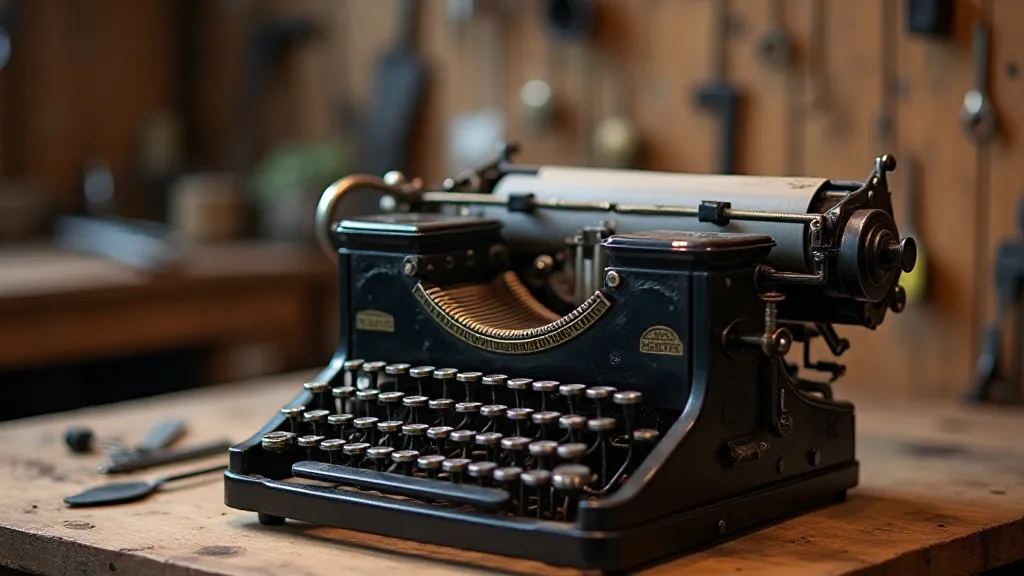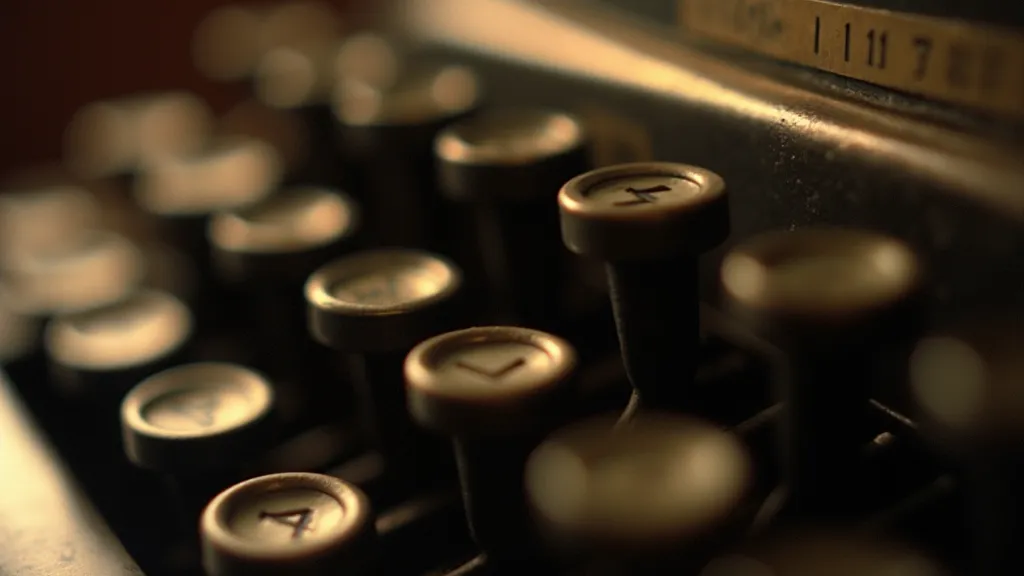
The Scribing Soul: Typewriter Fonts as a Portal to Lost Voices
There’s a peculiar intimacy fostered by the clatter of a typewriter. Not the sterile hum of a modern printer, but the rhythmic, almost percussive sound of metal striking paper, each letter a miniature declaration of presence. It's a sound imbued with a history, a tangible link to generations of writers, thinkers, and storytellers who poured their lives onto the page using these remarkable machines. And now, with a carefully chosen digital font, we can, in a small way, recapture some of that magic. This isn’t just about replicating a typeface; it's about summoning a specific emotional register, a unique atmosphere, a sense of authenticity that’s often lost in the digital age.
My own fascination began with my grandfather's Underwood No. 5. It sat, silent and imposing, in a corner of his study, a monument to his writing life. He was a poet, a man who wrestled with words, and the typewriter felt like an extension of his soul. I remember tracing the worn keys with my fingers, feeling the raised letters beneath my fingertips, imagining the countless stories it had helped to birth. It wasn’t just a machine; it was a portal to his world, a tangible connection to a man I desperately wanted to understand.
The digital reproduction of these typefaces—what we’re calling our "Replica Typewriter Font Library"—is more than a technical exercise. It’s a labor of love, a painstaking effort to capture not only the visual appearance of these fonts, but also the subtle nuances of their character. Each font is a digital fingerprint of a specific typewriter model, meticulously recreated to match the original spacing, kerning, and even the slight imperfections that arise from years of use.
The History Held Within Each Font
Consider the Remington No. 2, one of the earliest commercially successful typewriters. Its font, often referred to as "Remington No. 2," embodies the optimism and ambition of the late 19th century. It's a bold, straightforward typeface, reflecting the era's focus on practicality and progress. Choosing this font for your writing evokes a sense of formality and a connection to the pioneers of the typewriter age.
Then there's the iconic Olivetti Lettera 22, a design masterpiece from the mid-20th century. Its font, characterized by its elegant curves and a slightly softer feel, conveys a sense of sophistication and refinement. It’s a font that whispers of Milanese design, of a more leisurely pace of life, and of a quiet confidence.
The Corona 3, a popular portable typewriter, possessed a remarkably distinctive font – often described as delicate and slightly whimsical. Its recreation is particularly challenging, capturing the subtle variations caused by the machine’s less robust mechanics.
Even seemingly minor differences in the internal mechanisms of these machines – a slightly different hammer strike, a subtly different font casting process – contributed to the unique character of each typeface. Replicating these differences is the heart of our project.
The Craft of Replication: More Than Just a Font File
The process of recreating a typewriter font is far more complex than simply scanning a sample and converting it to a digital format. It requires a deep understanding of typography, a keen eye for detail, and a genuine appreciation for the craftsmanship of the original machines. We're not just recreating letters; we're reconstructing a history.
The first step involves acquiring a physical sample of the typewriter font. This is often challenging, as many of these machines are rare and their original fonts are even rarer. Once we have a sample, we painstakingly scan it at high resolution, capturing every detail of the typeface’s form. Then comes the laborious process of tracing the letters, adjusting the spacing, and fine-tuning the kerning – the space between individual letters – to match the original as closely as possible. This requires meticulous attention to detail and a deep understanding of the principles of typography.
Furthermore, we attempt to replicate the "imperfections" inherent in the original typefaces. The slight variations in the hammer strike, the subtle wear and tear on the font casting, all contribute to the unique character of each typeface. These imperfections are often what give a typewriter font its soul.
Selecting the Right Font: Evoking the Desired Atmosphere
The choice of font isn’t just about aesthetics; it's about evoking a specific emotional register. Do you want your writing to feel formal and authoritative, or informal and approachable? Do you want it to feel timeless and classic, or modern and edgy?
Using the Remington No. 2 font for a legal document would convey a sense of seriousness and professionalism. Employing the Olivetti Lettera 22 font for a personal letter would create a feeling of warmth and intimacy. The Corona 3 might suit a children’s story, lending it a playful and whimsical tone.
Think of a detective novel set in the 1940s. A typeface inspired by a Royal Quiet De Luxe might be perfect, instantly grounding the reader in the era and setting the mood. The subtle imperfections inherent in the font, mirroring the wear and tear on a well-used machine, could even suggest a sense of mystery and intrigue.
The Enduring Legacy of Typewriter Typography
In a world dominated by digital fonts, the typewriter font offers a unique and evocative alternative. It's a portal to a lost world, a connection to a rich history of craftsmanship and creativity. We hope that our Replica Typewriter Font Library inspires you to explore the enduring legacy of typewriter typography and to discover the power of these remarkable fonts to imbue your writing with a unique and unforgettable character.